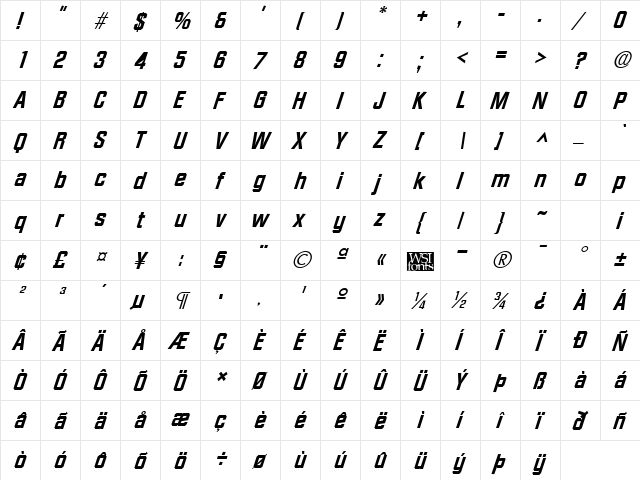
FacetExtrabold-Xitalic Regular Font Preview
Design Context for FacetExtrabold-Xitalic Typeface
FacetExtrabold-Xitalic takes a measured approach to typography — its balanced proportions and neutral character make it a reliable workhorse for both digital and print work. The dynamic lean of this cut emphasises speed and emphasis in any layout. The heavy weight commands attention and anchors typographic hierarchies.
Pro Tip: Try FacetExtrabold-Xitalic for annotation and caption copy alongside an upright companion — the contrast in angle creates a dynamic but ordered typographic system.